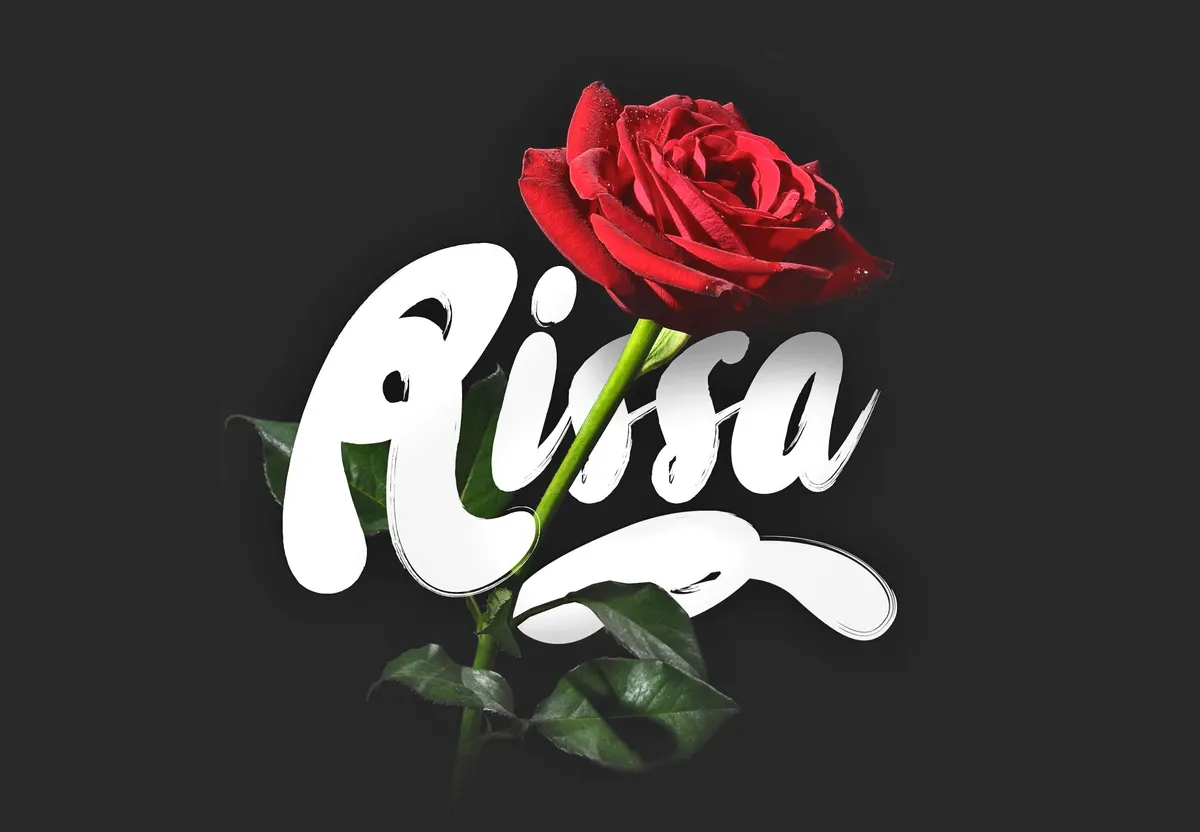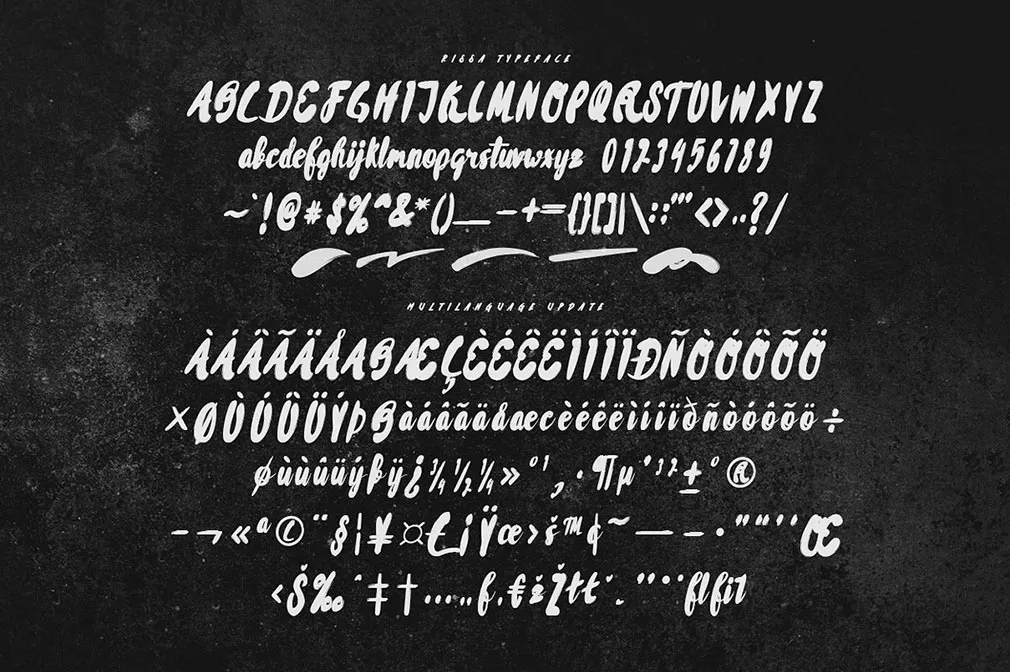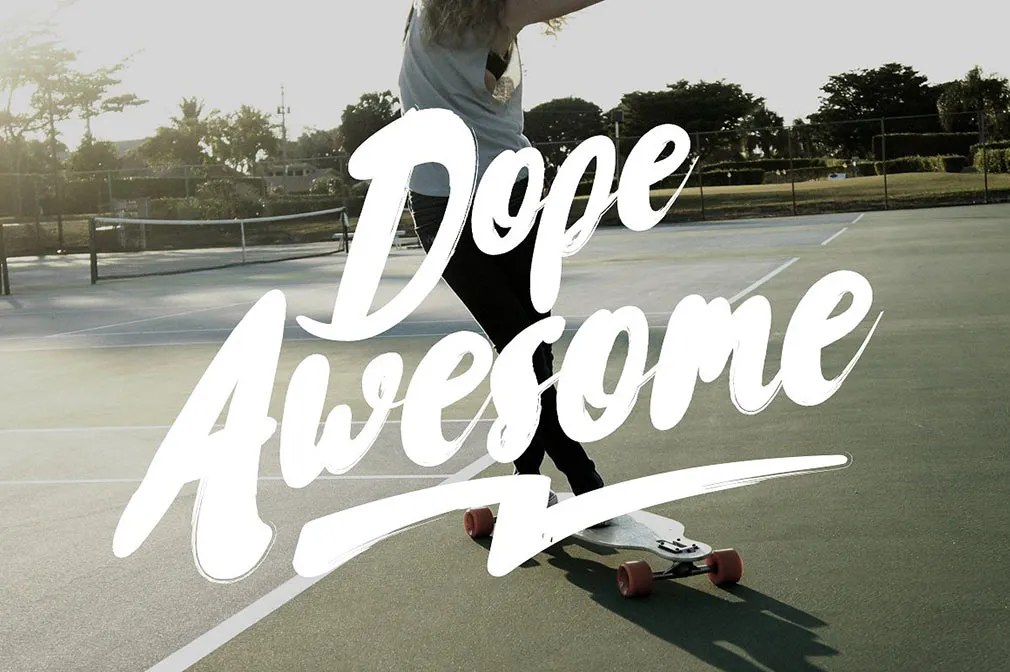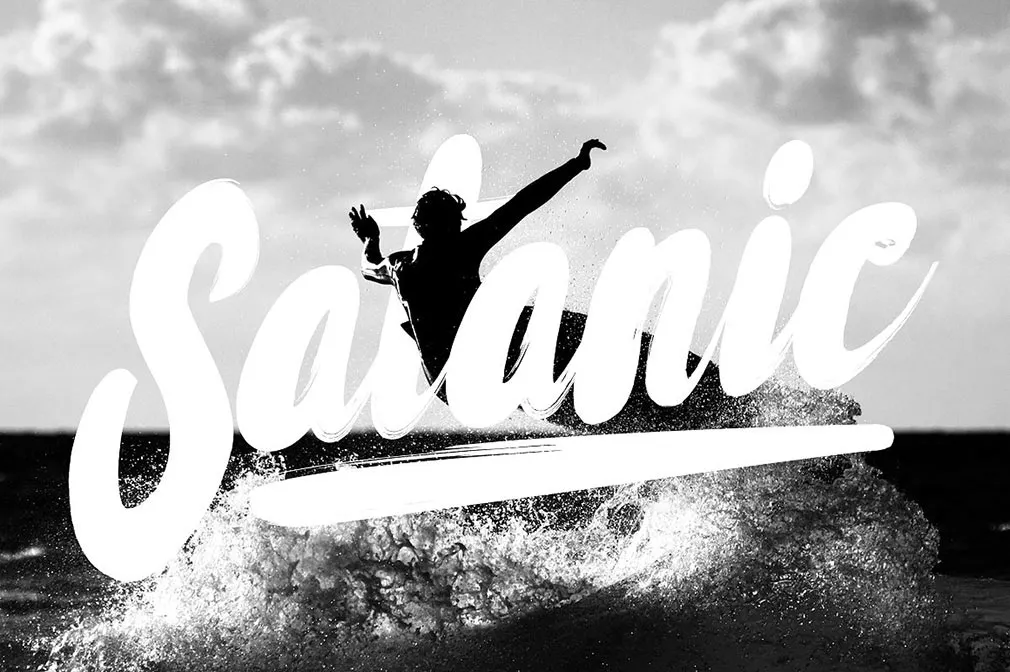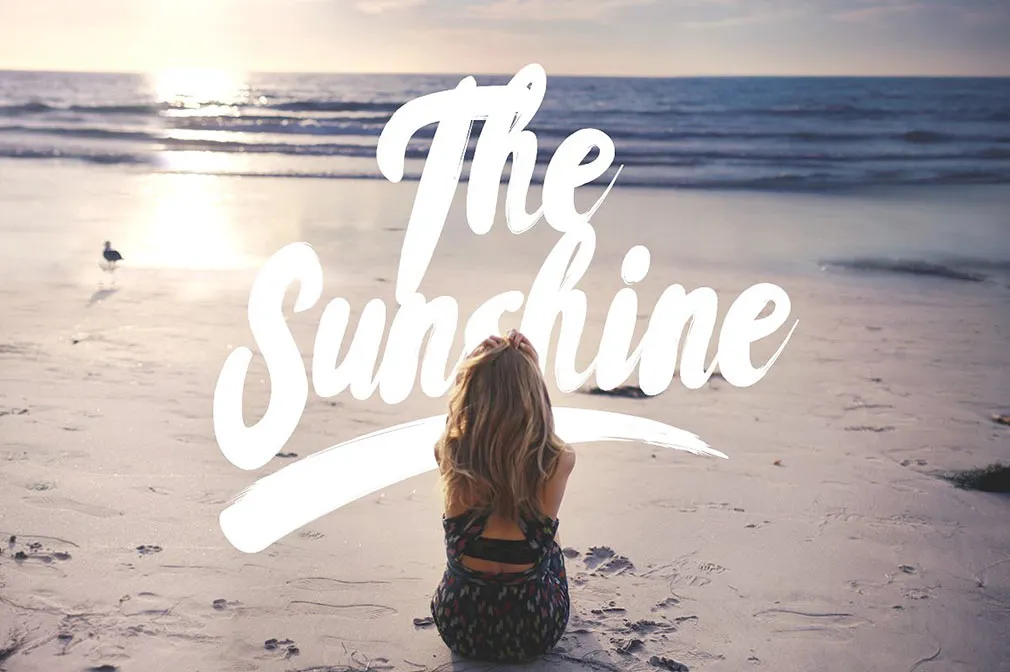
Rissa Typeface
It's time for light, beautiful hand-drawn fonts! Meet Rissa, a stunning typeface that will give your designs an authentic brush handcrafted feel. Such display font just won't be left without admiration!
We've prepared everything for your comfortable workflow in one pack: upper and lowercase, numerals, artistic swashes and punctuation marks. It's perfect first of all for stationery, logos and apparel designs, then you can set your fantasy free and add many more variants to use it for!